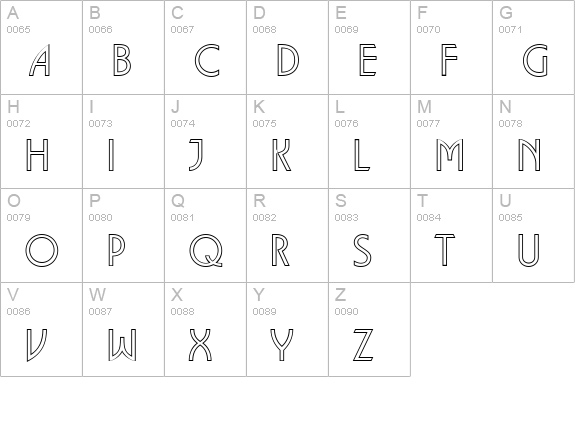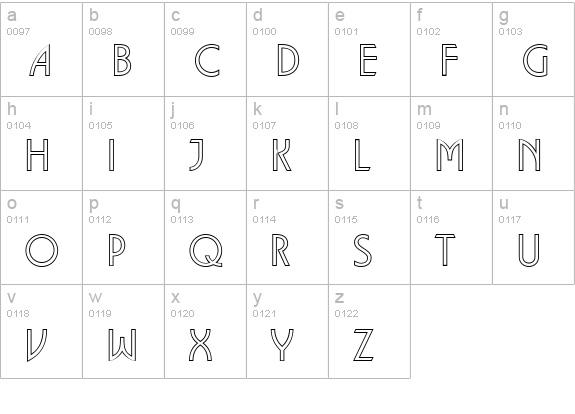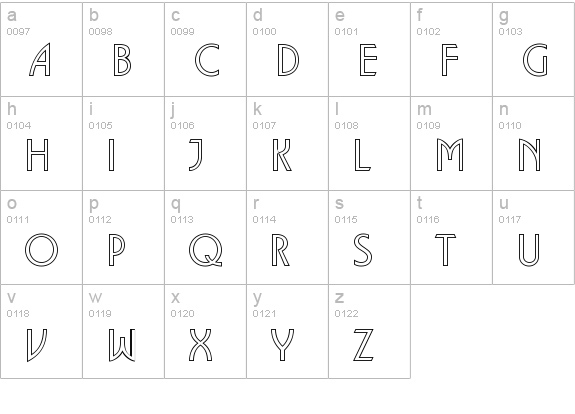
a_LancetOtl Font Details
Introducing the majestic and sophisticated LancetOtl font, a timeless typeface that exudes elegance and charm. This font boasts intricate details and sharp angles, giving it a unique and modern look that is sure to make any design stand out. The LancetOtl font is perfect for creating stunning logos, headlines, invitations, and more. What makes the LancetOtl font even more appealing is that it is available for free download at FontsMarket.com. This means that you can effortlessly add this stunning font to your collection without any cost. Whether you're a seasoned designer or just starting out, LancetOtl font offers endless possibilities to elevate your projects and make a lasting impression. Download LancetOtl font today and let your creativity soar!